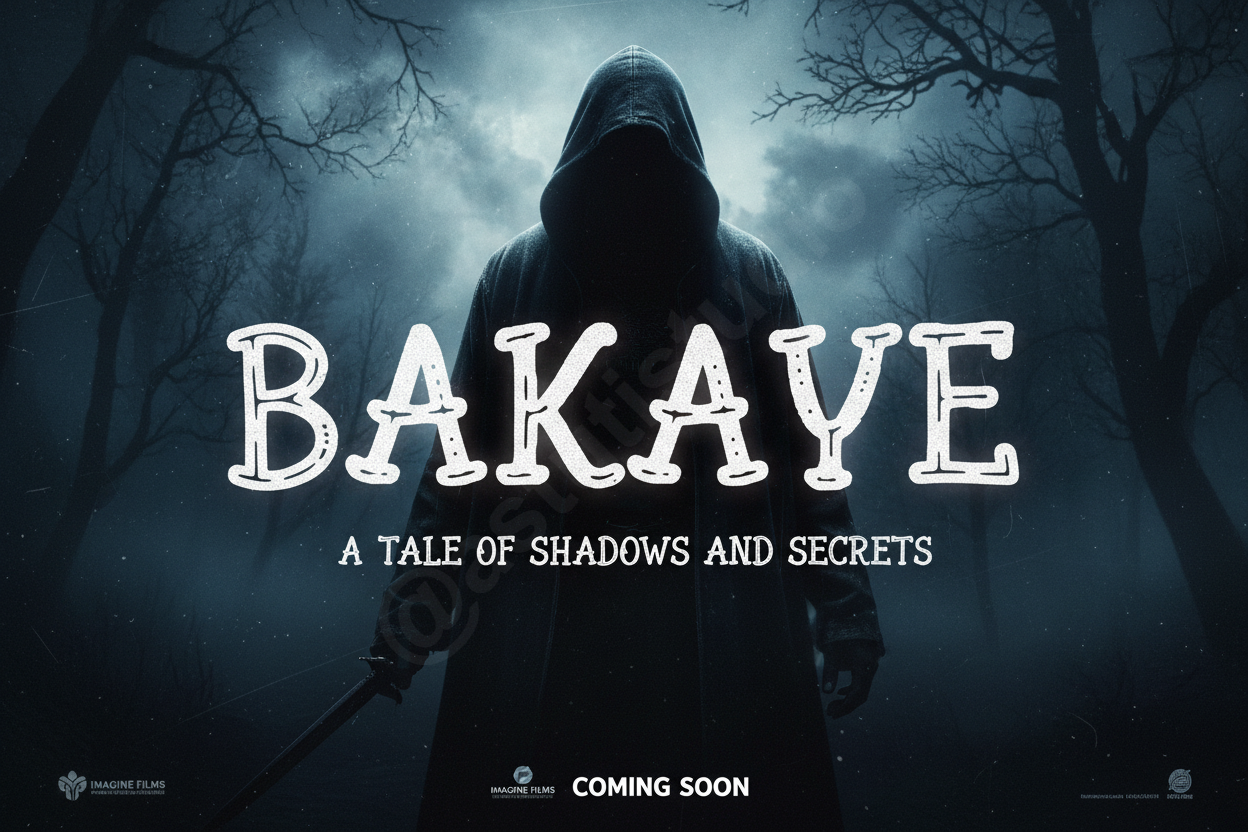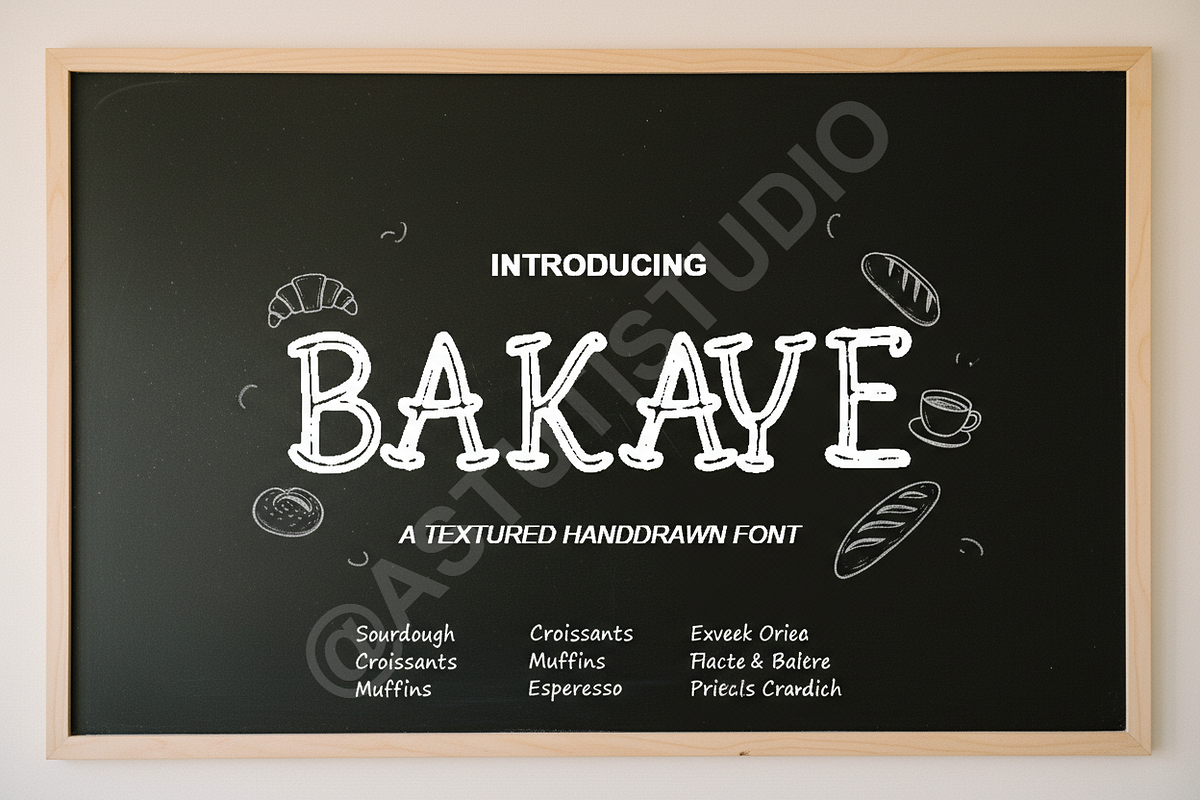
Bakaye Display Font | Grunge Horror
✨ INTRODUCING BAKAYE ✨
Bakaye Bold Vintage Display Font - Retro Branding Logo Design Typeface | Rough Textured Header Font for T-Shirts, Posters, and Packaging
Elevate your designs with Bakaye, a Vintage typeface carefully crafted to bring a professional touch to your creative projects.
✅ PERFECT FOR: • Logo branding that requires a strong, established look (e.g., breweries, barbershops). • High-impact T-shirt and apparel design. • Product packaging and labeling for artisanal or rustic goods. • Poster design, event flyers, and music album artwork. • Vintage digital advertisements and social media graphics.